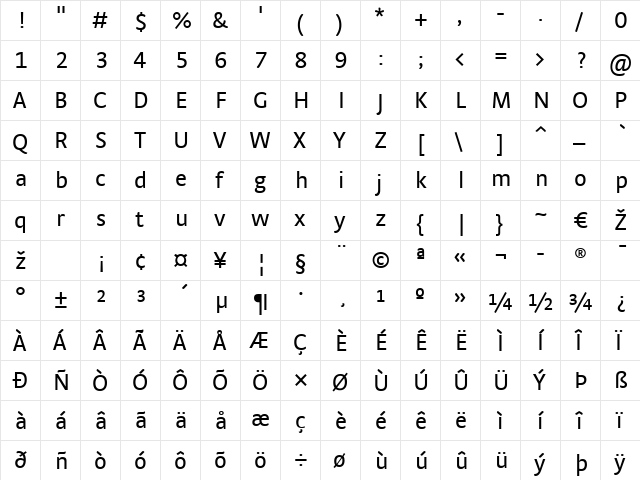
StradaTF-Regular Regular
| Designer | Albert Pinggera |
Design Context for StradaTF-Regular Typeface
StradaTF-Regular is a composed and adaptable typeface that performs quietly and consistently across a wide range of design contexts.